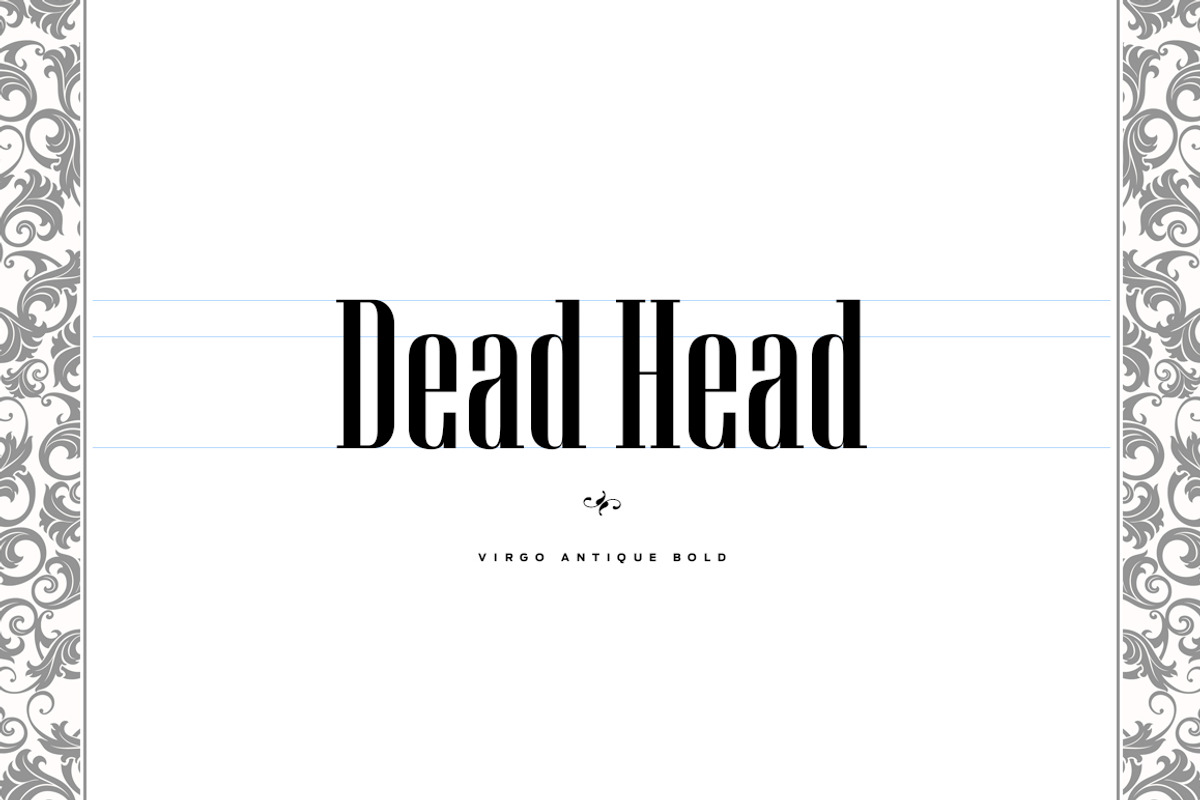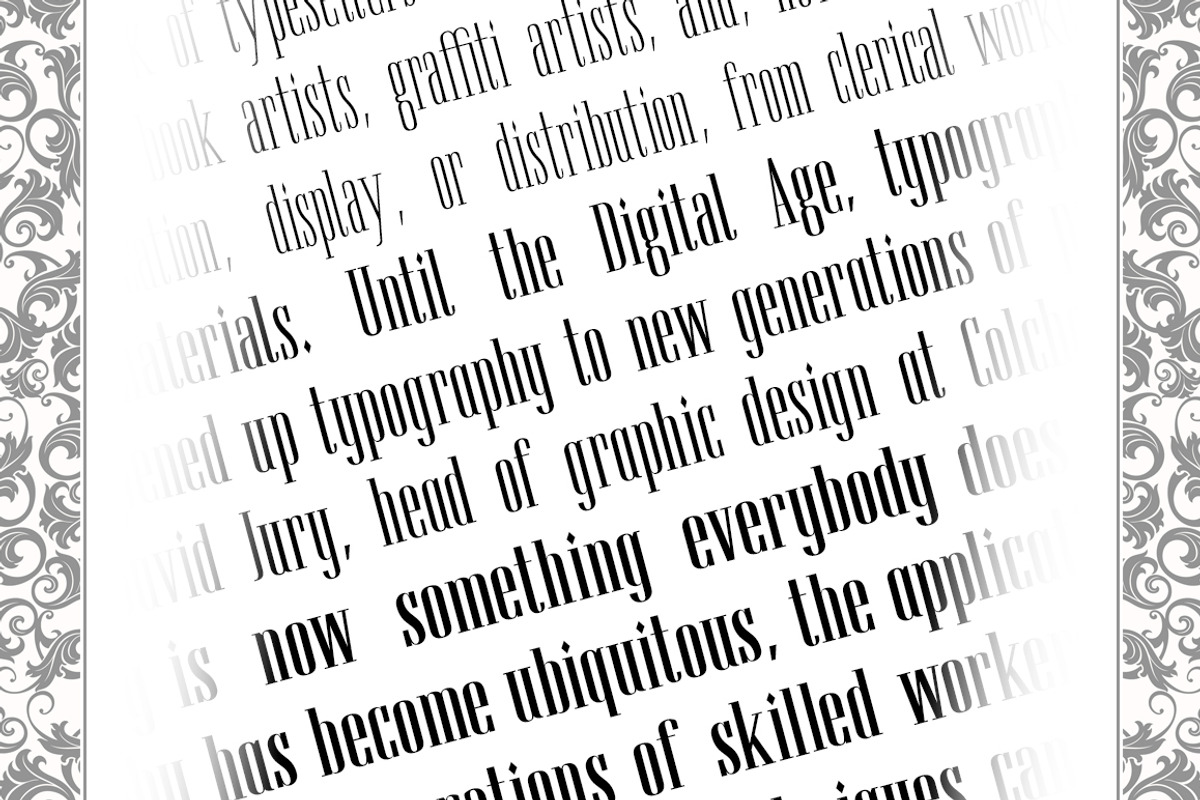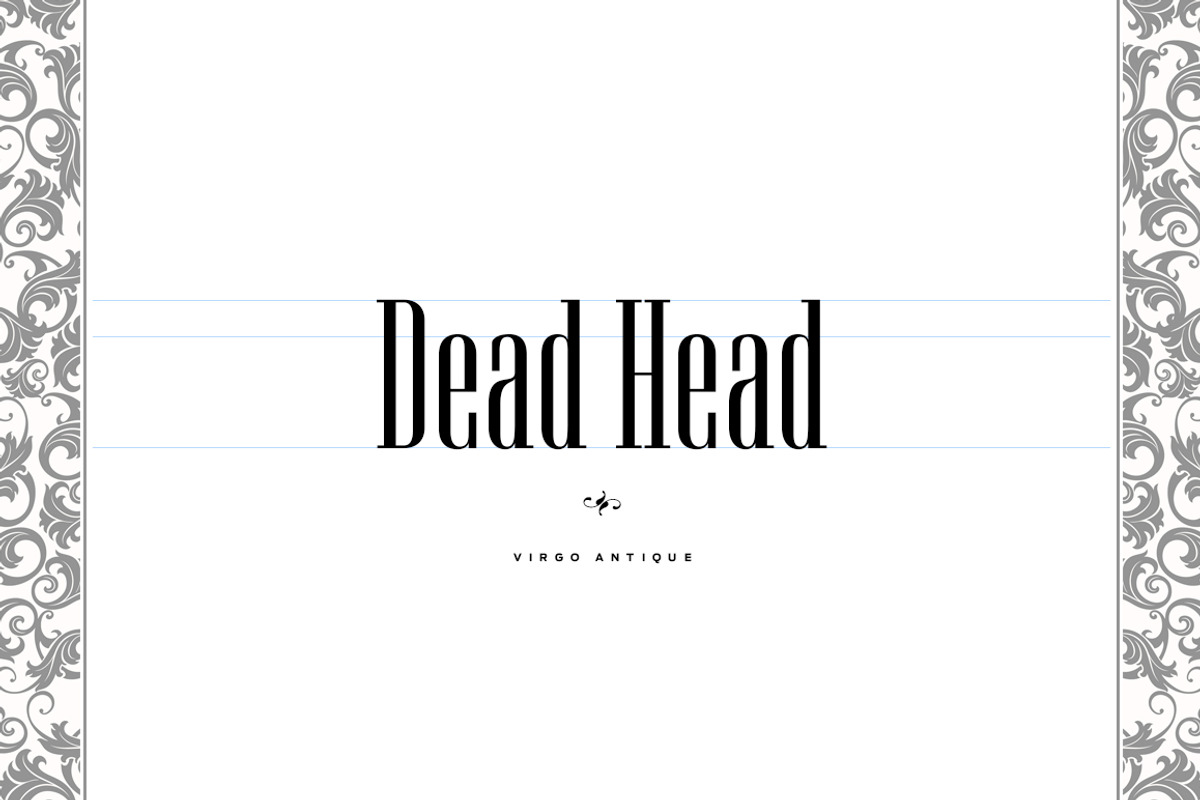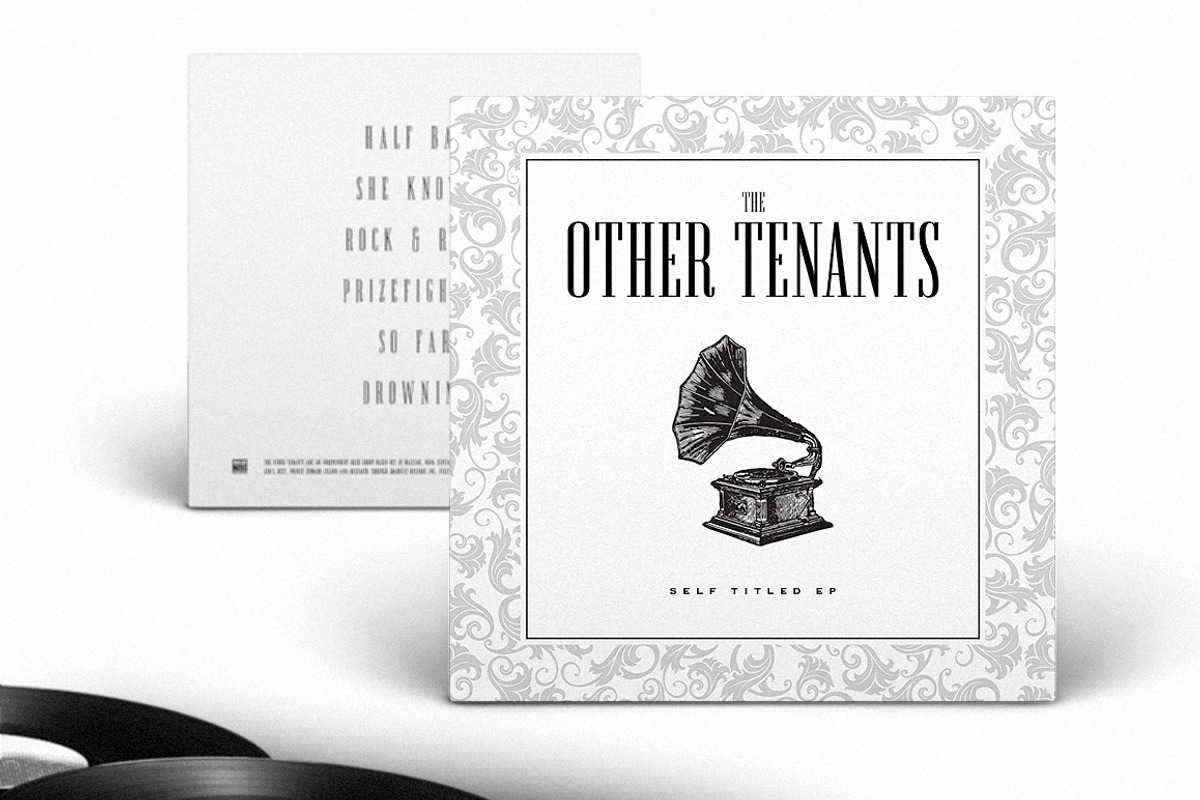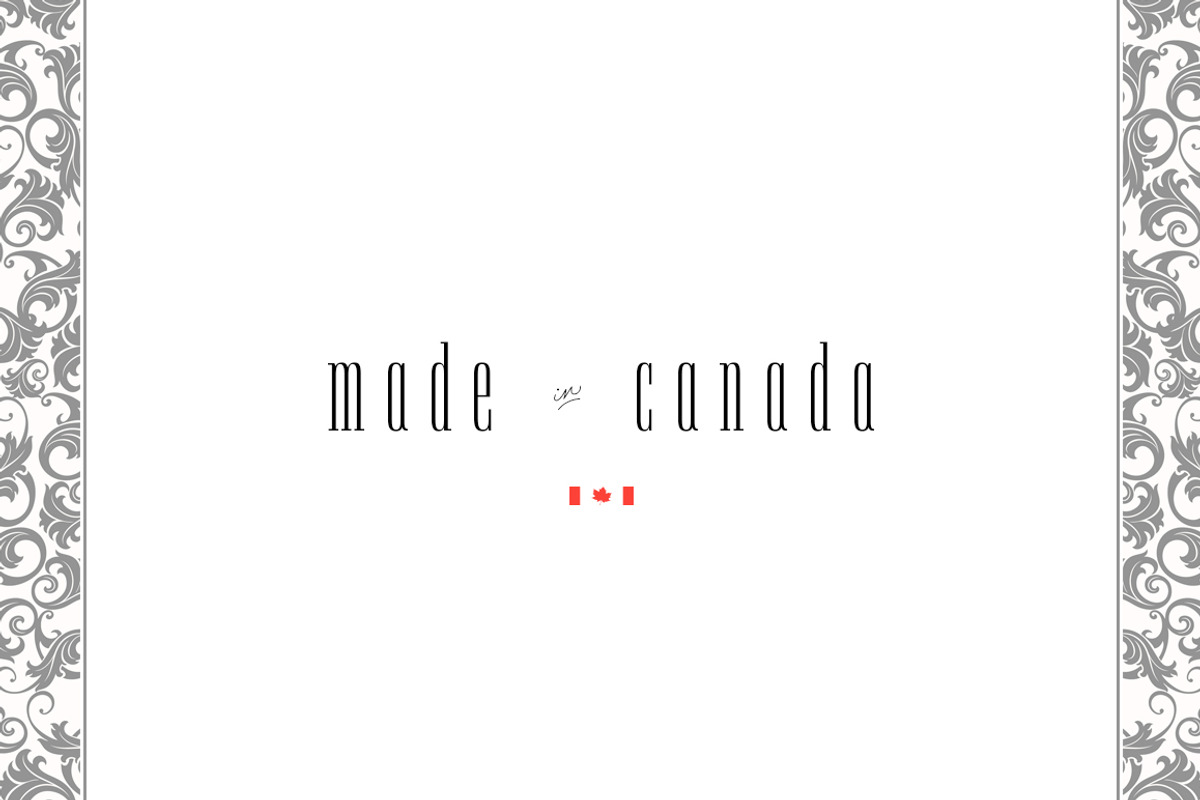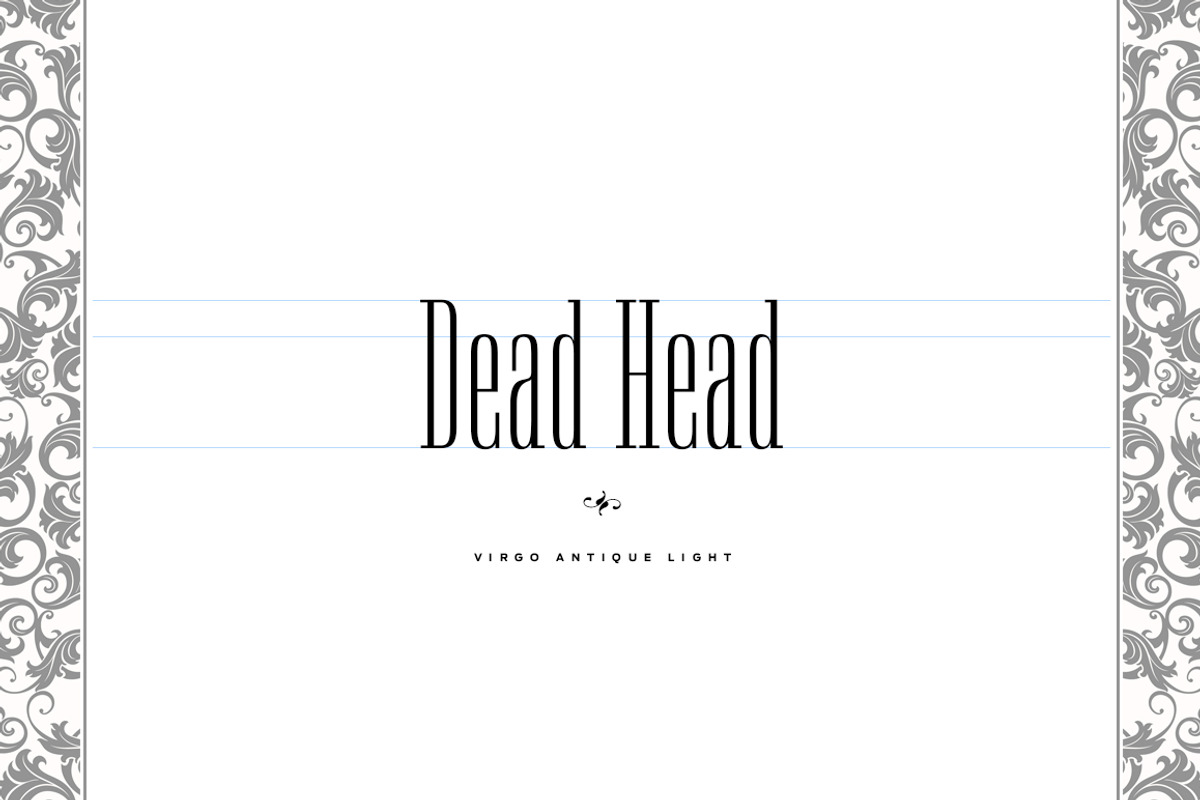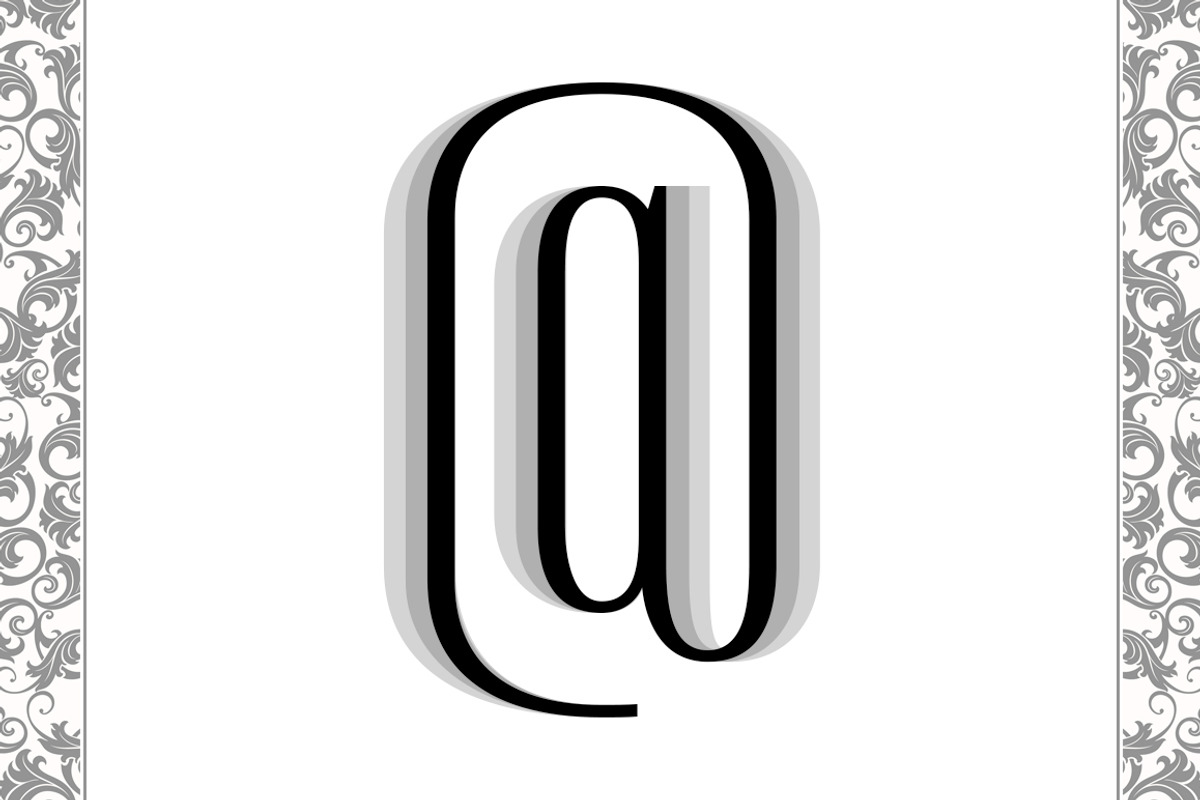
Virgo Antique Display
Virgo Antique™ is an antique serif, comes in 3 clean weights with identical x-heights, and each is packed with a ton of goodies!
Full western character set, multilingual support for most western-euro languages, stylistic alternates, superscripts, ordinals, fractions, and even a collection of hand-drawn script catchwords that can be activated by simply typing '01' at the end of your catchword (e.g. from01).
The font comes with full upper & lower case, including a couple of basic ligatures, and also comes equipped with multilingual support for the following languages:
Breton, Catalan, Czech, Danish, Estonian, English, Finnish, French, German, Hungarian, Icelandic, Italian, Latvian, Lithuanian, Norwegian, Polish, Portuguese, Romanian, Scottish Gaelic, Slovak, Slovenian, Spanish, Swedish, Turkish, Welsh.